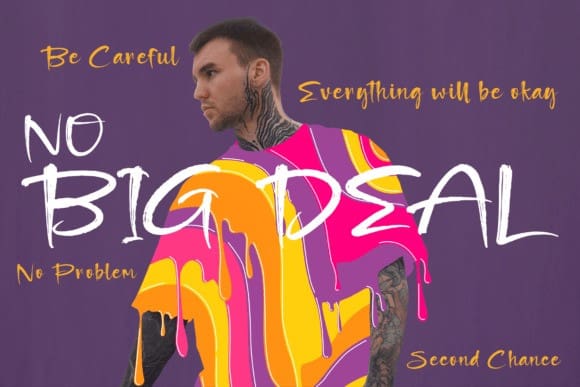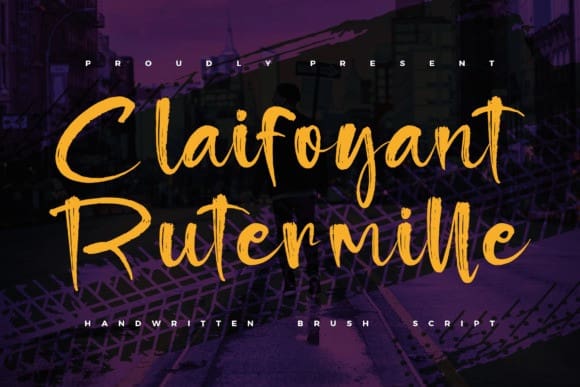
Claifoyant Rutermille Font
Claifoyant Rutermille Font – Handwritten Brush Script , from Glorytype Studio, suitable for any projects such as: logos, branding projects, homeware designs, product packaging, mugs, quotes, posters, shopping bags, t-shirts, book covers, name card, invitation cards, greeting cards, label, photography, watermark, special events, and all your other lovely projects that need a beautiful script taste.